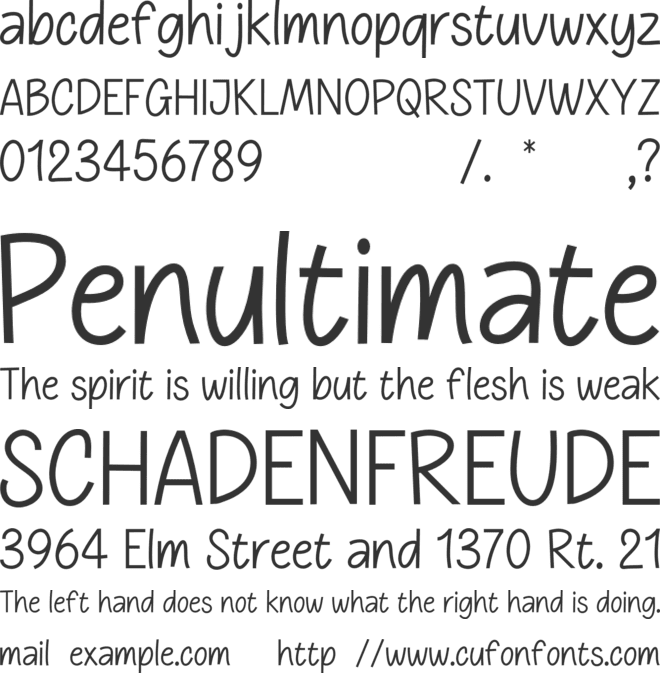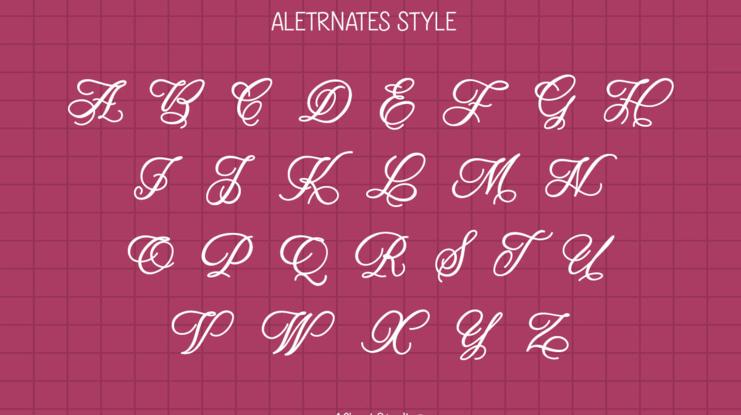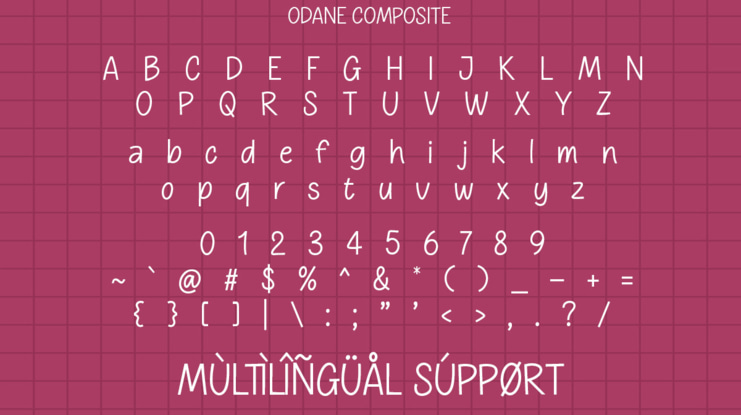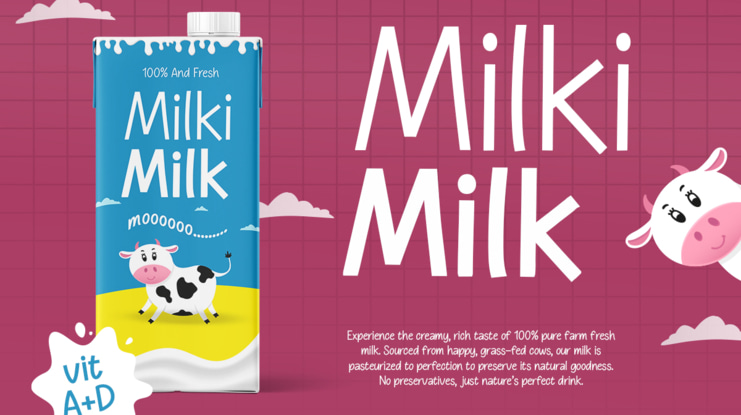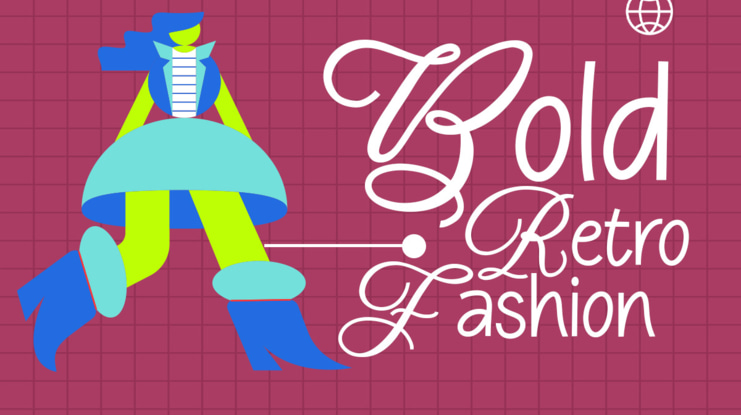
Odane is a modern stylish handwritten font designed to bring a natural, elegant, and confident handwritten feel into your designs. Featuring smooth strokes and balanced letterforms, Odane blends casual handwriting with a clean, contemporary style—perfect for modern branding and lifestyle visuals.
Odane – Modern Stylish Handwritten Font
Odane is a modern stylish handwritten font designed to bring a natural, elegant, and confident handwritten feel into your designs. Featuring smooth strokes and balanced letterforms, Odane blends casual handwriting with a clean, contemporary style—perfect for modern branding and lifestyle visuals.